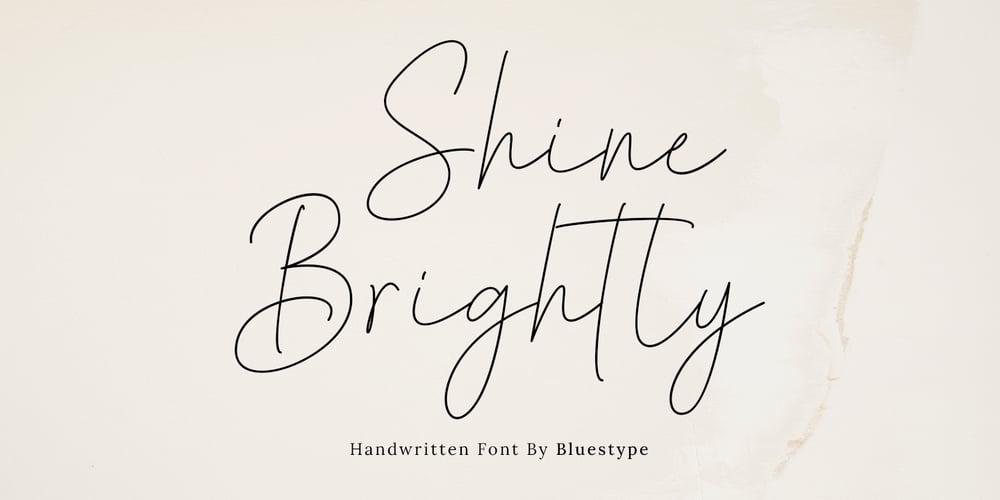
Shine Brightly
Shine Brightly font
Shine Brightly Font Family was designed by Jefri Dwi Alfatah and published by Bluestype Studio. Shine Brightly contains 1 styles and family package options. “Shine Brightly” is a signature and handwriting-themed font exuding elegance and beauty. With its graceful strokes and exquisite letterforms, this font captures the essence of refined penmanship. Each character shines with a distinct personality, offering a touch of sophistication to any design project.